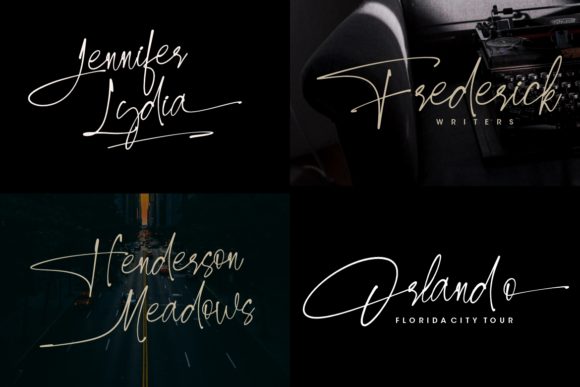
Carlista Buttery is an elegant handwritten font. It has a natural & stylish look and it is great for adding a unique touch to any design project!
Carlista Buttery Font